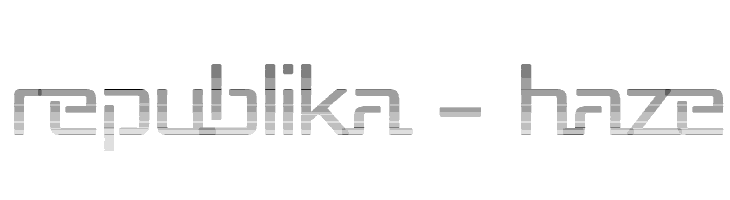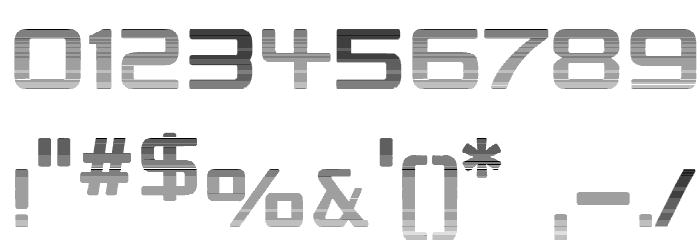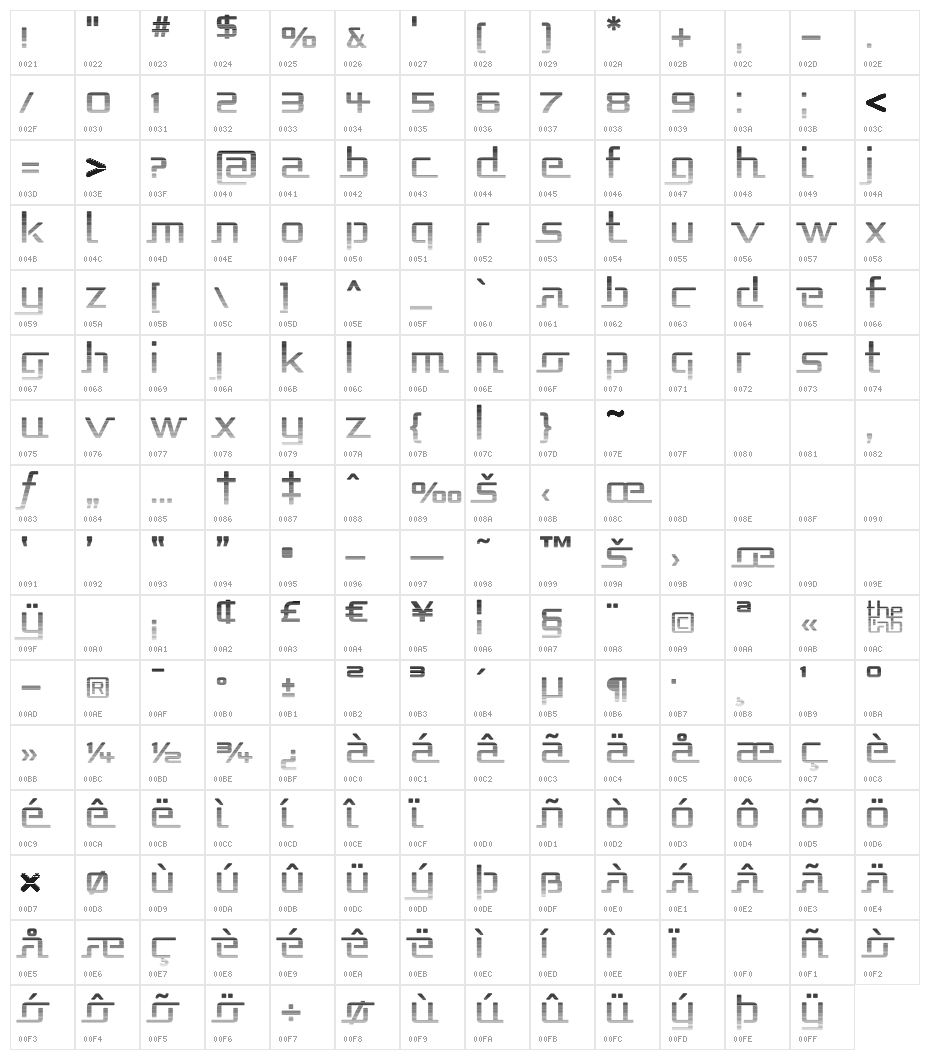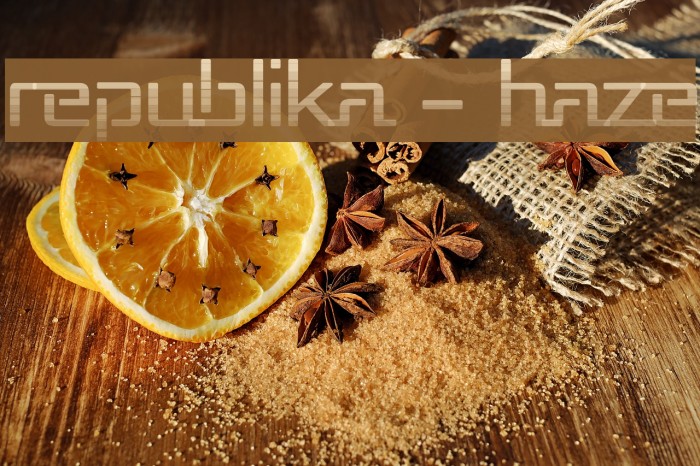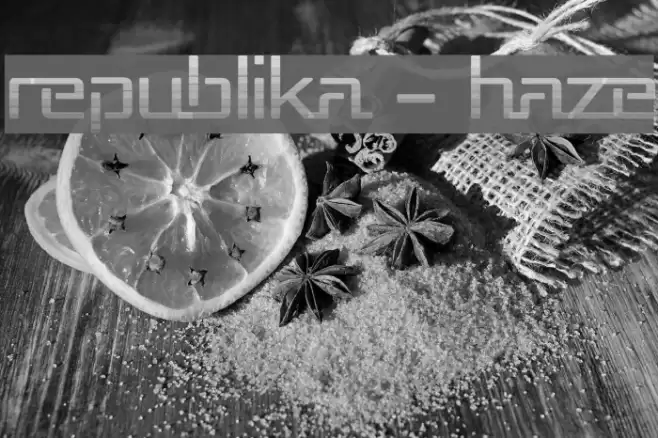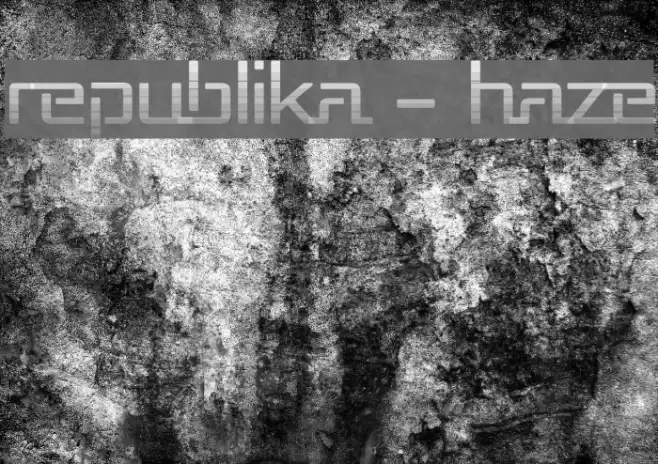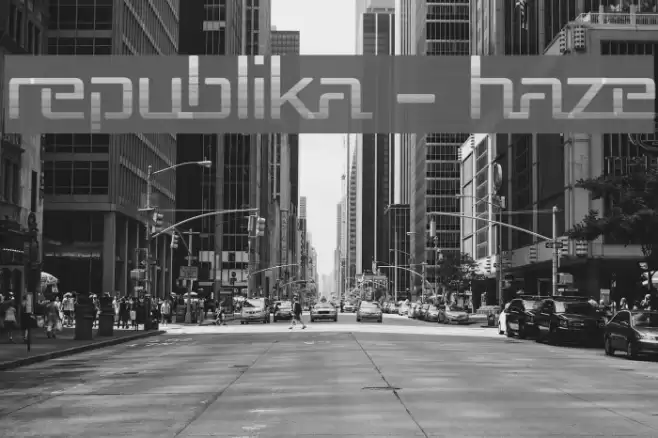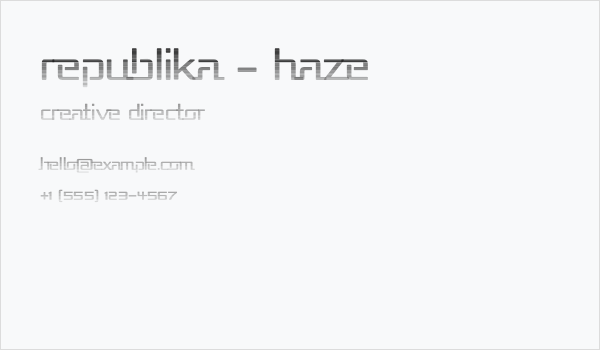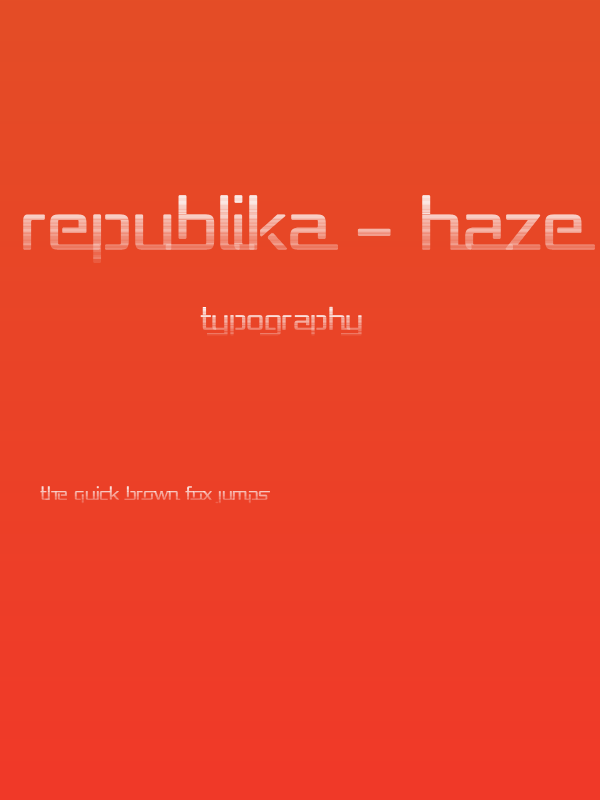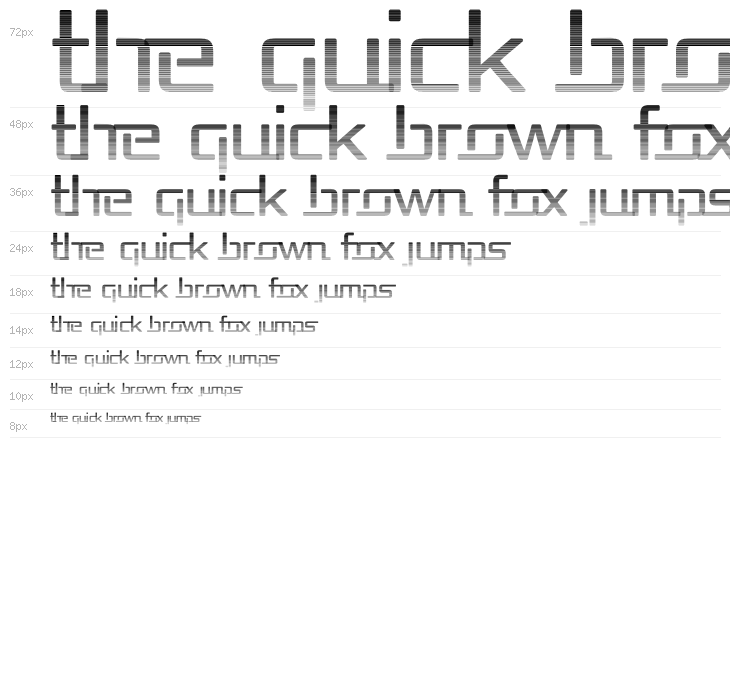
Republika - Haze Font
Republika - Haze Description
This font features a modern, futuristic design with a digital aesthetic. The characters are constructed with a unique pattern of horizontal lines, creating a sense of movement and depth. The uppercase and lowercase letters maintain a consistent geometric structure, with rounded edges and a sleek, streamlined appearance. The numerals and special characters follow the same design principles, ensuring uniformity across the entire typeface. This font's distinctive style makes it ideal for projects that require a contemporary and technological feel.
| Use Case | Logos, Headlines, Digital interfaces |
| Proposed Projects | Ideal for technology branding, digital media, video game interfaces, and sci-fi themed projects. |